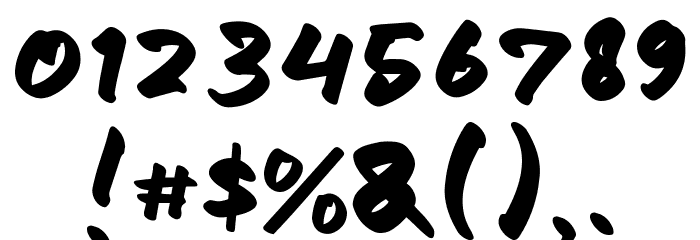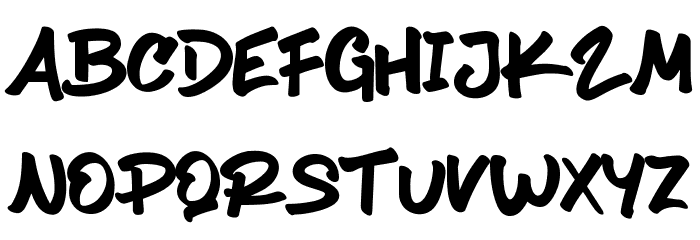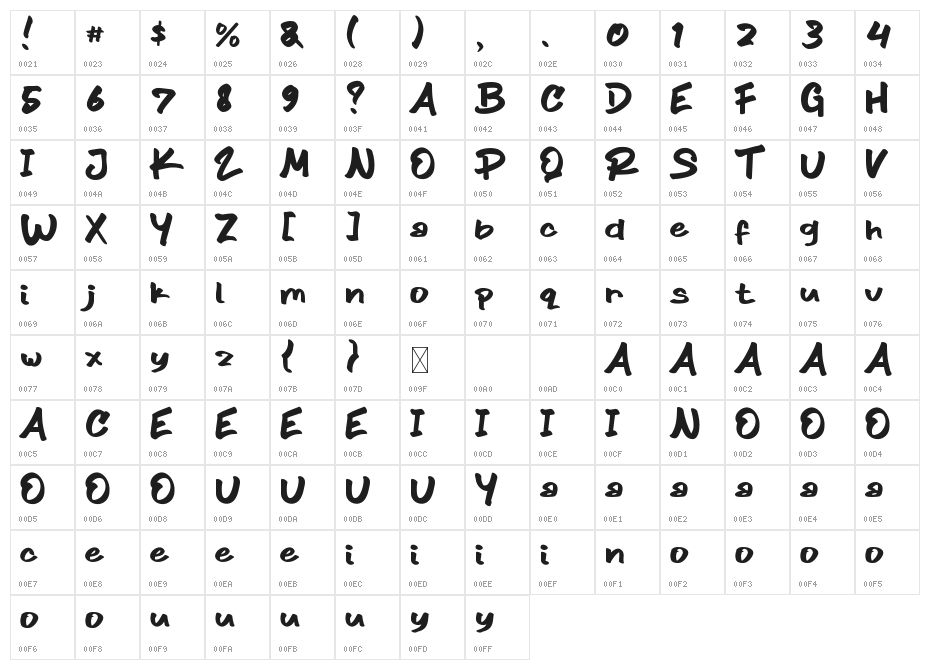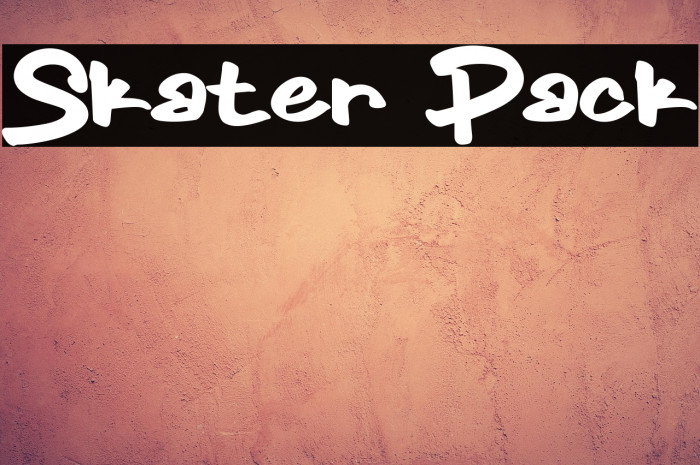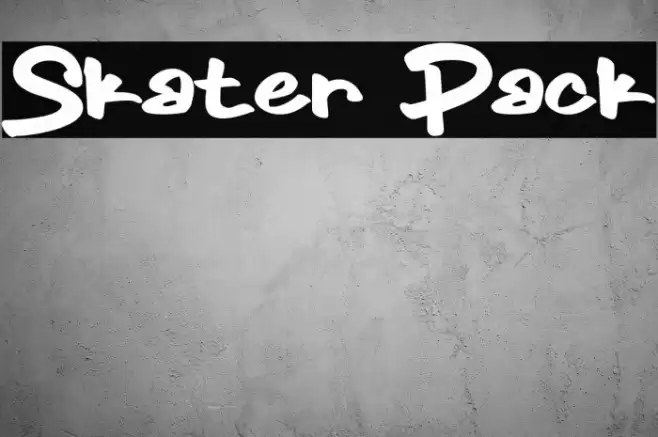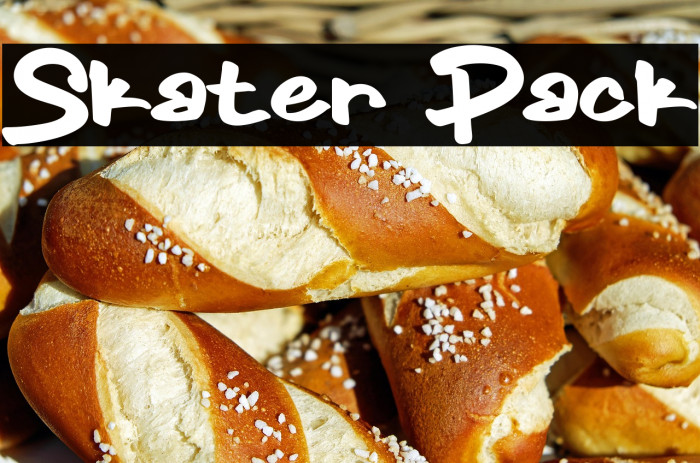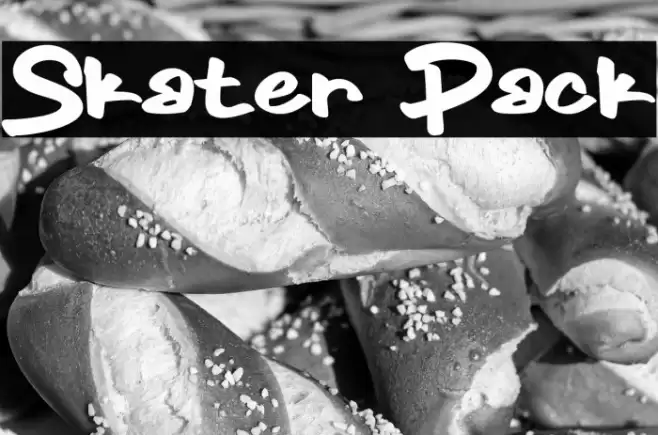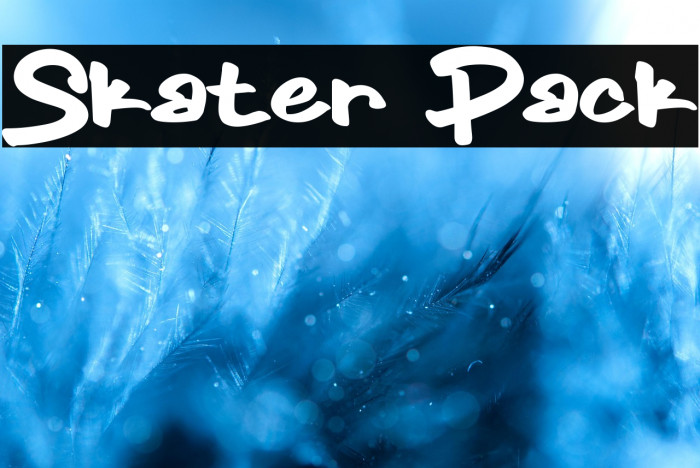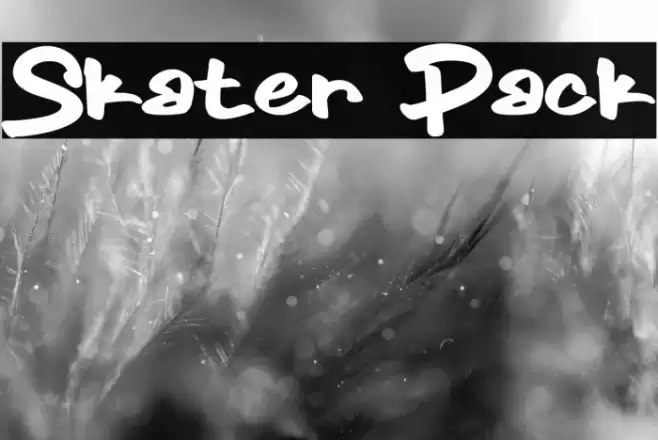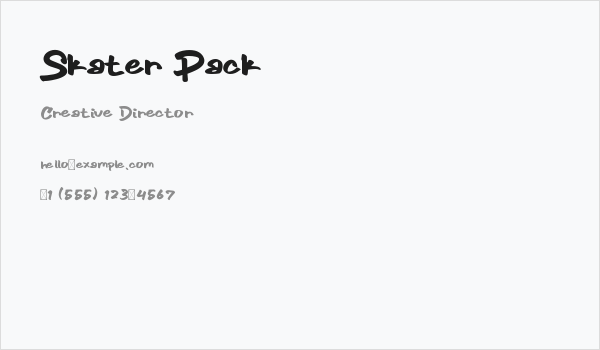
Skater Pack Font
Skater Pack Description
This font exudes a bold and energetic style, reminiscent of urban graffiti and street art. The characters are crafted with a dynamic flow, featuring thick, rounded strokes and a slightly irregular baseline that adds to its casual and rebellious charm. The uppercase and lowercase letters maintain a consistent style, with a playful yet assertive presence. Numbers and special characters are equally bold, ensuring a cohesive look across all text elements. This font is perfect for projects that aim to capture a youthful, vibrant, and edgy aesthetic.
| Proposed Projects | Ideal for streetwear branding, skateboarding event posters, music album covers, and urban-themed social media graphics. |